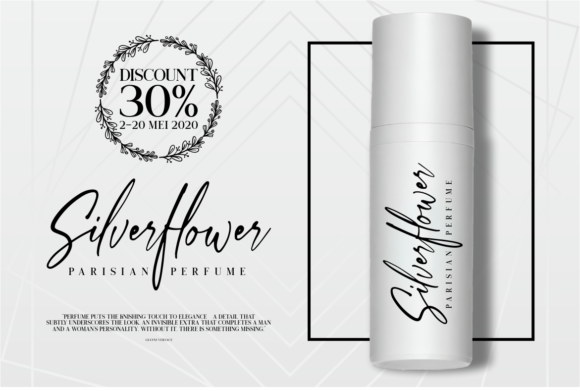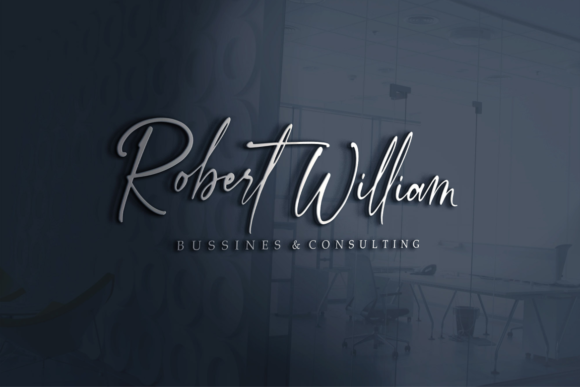
Anthery Collection Font
Anthery Collection simplifies elegance into one truly outstanding handwritten font. This font will look outstanding in any context, whether it’s being used on busy backgrounds or as a standalone headline!